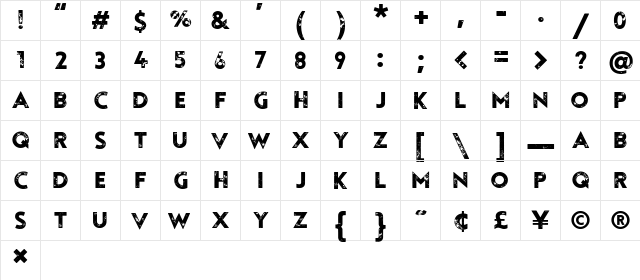
Tourmaline Printed
Printed · Vincenzo Paolo Fraddosio Vincenzo Paolo Fraddosio ·
DesignerVincenzo Paolo Fraddosio
Design Context for Tourmaline Typeface
Tourmaline takes a measured approach to typography — its balanced proportions and neutral character make it a reliable workhorse for both digital and print work.